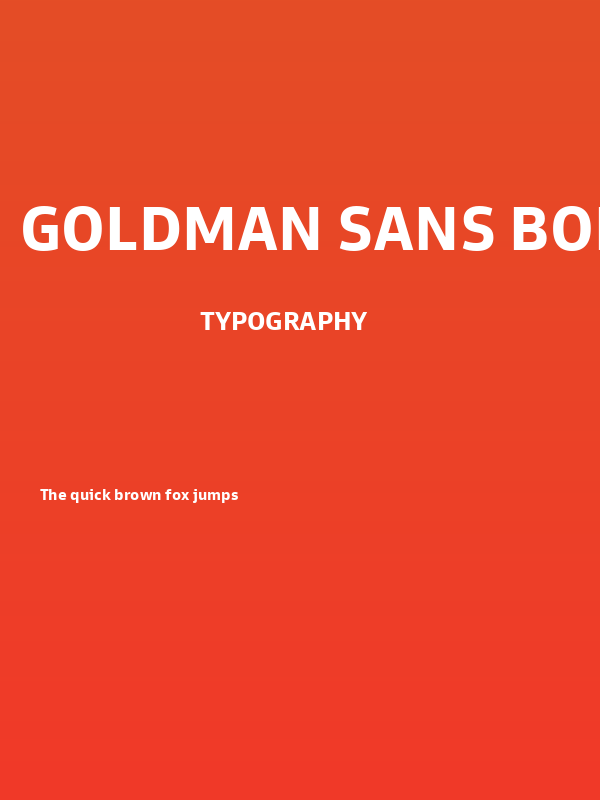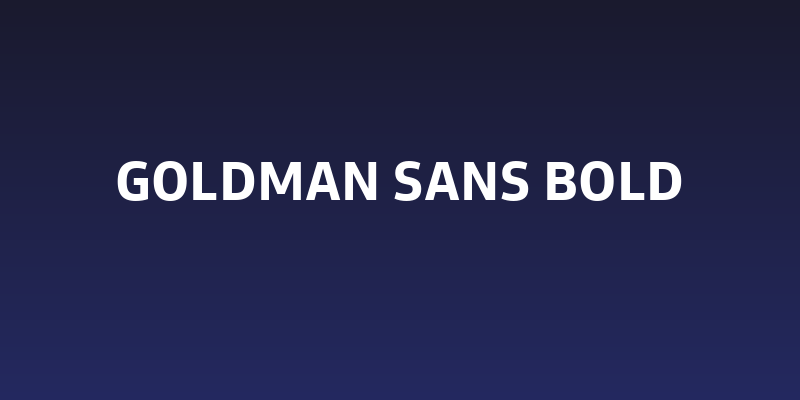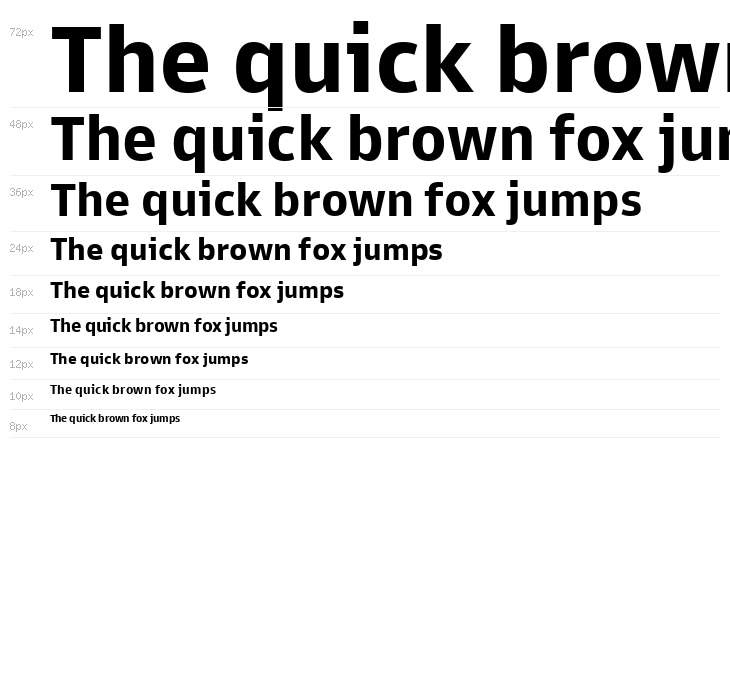
Goldman Sans Bold Font
Goldman Sans Bold Description
This typeface presents a clean and modern aesthetic with bold, uniform strokes that convey a sense of strength and clarity. The characters are well-proportioned, with consistent line weights that enhance readability. The sans-serif design ensures a contemporary look, making it versatile for various applications. The spacing between characters is balanced, allowing for easy legibility across different sizes. Its bold nature makes it suitable for attention-grabbing headlines while maintaining a professional appearance.
| Use Case | Headlines, Logos, Digital Interfaces |
| Proposed Projects | Ideal for branding, advertising, digital interfaces, and editorial design where clarity and impact are essential. |